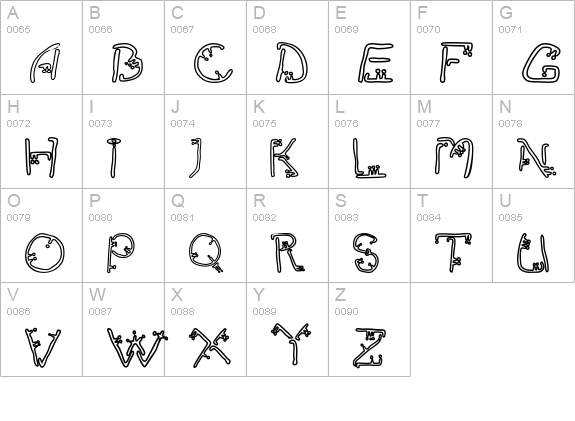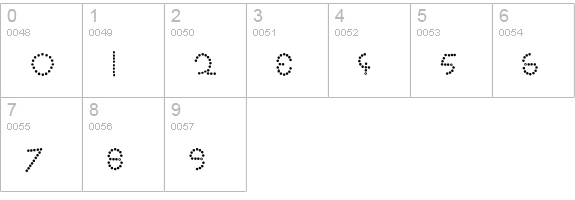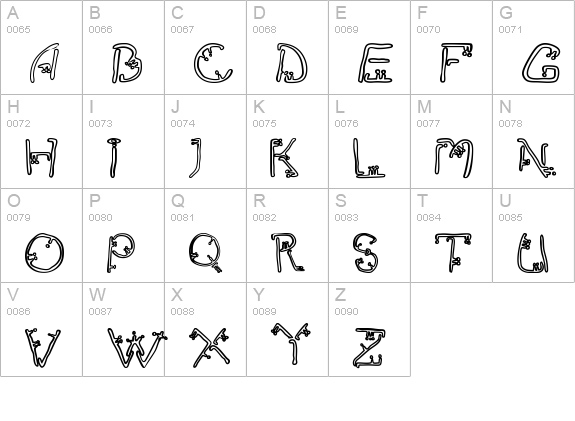
Stylophonia-Anti Font Details
Stylophonia-Anti font is a striking typeface designed to make a bold statement. With its unique and modern aesthetic, this font is perfect for creating eye-catching designs that demand attention. The sharp angles and edgy details of Stylophonia-Anti give it a contemporary and dynamic look that sets it apart from traditional fonts. What makes Stylophonia-Anti even more appealing is the fact that it is available for free download at FontsMarket.com. This means that you can easily add this versatile font to your collection without any cost, making it a valuable resource for designers, creatives, and anyone looking to enhance their projects with a touch of modern flair. Whether you're working on a branding project, advertising campaign, or simply want to spice up your social media posts, Stylophonia-Anti is sure to make a bold impact. Download it for free today and unleash your creativity with this striking and versatile font.